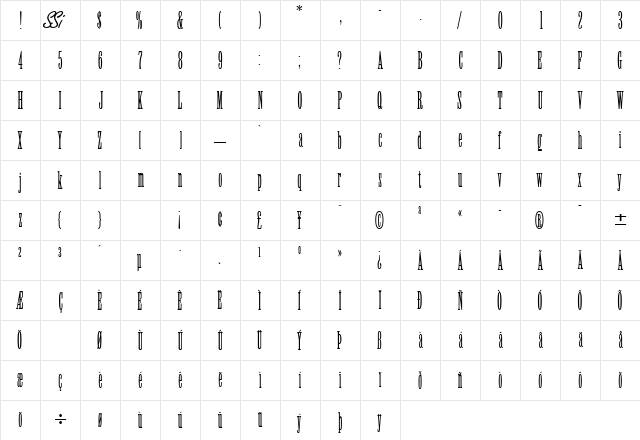
ElvenSSK Regular
Design Context for ElvenSSK Typeface
ElvenSSK offers clean, dependable letterforms without strong stylistic allegiance, making it a practical choice for designers who need flexibility.
Pro Tip: Use ElvenSSK in both headline and body roles to test its range before committing to a single application.